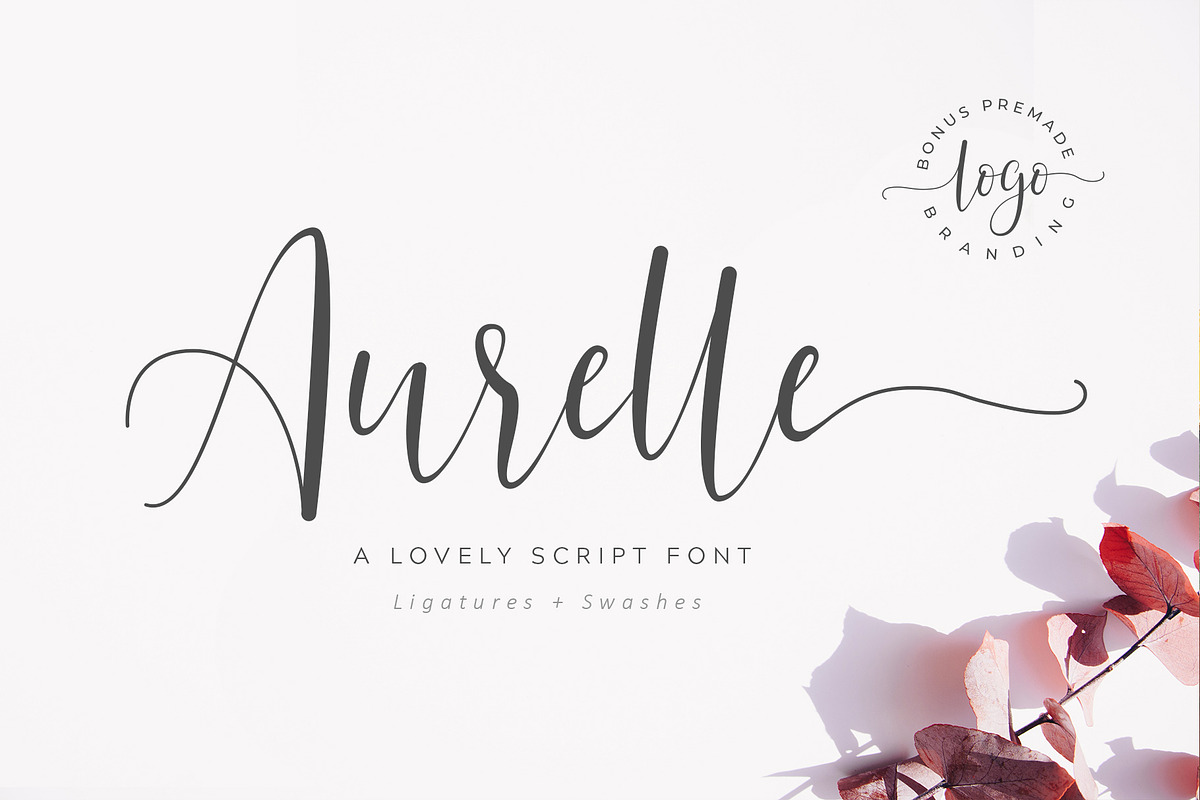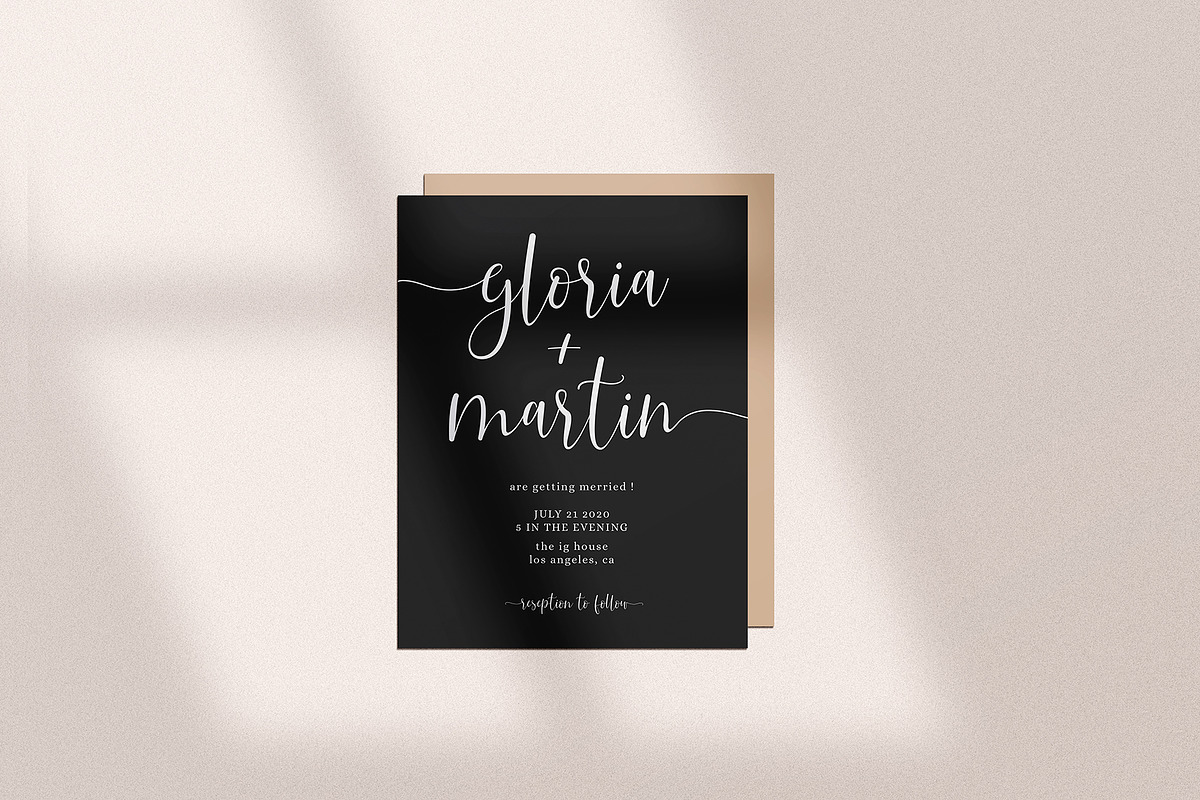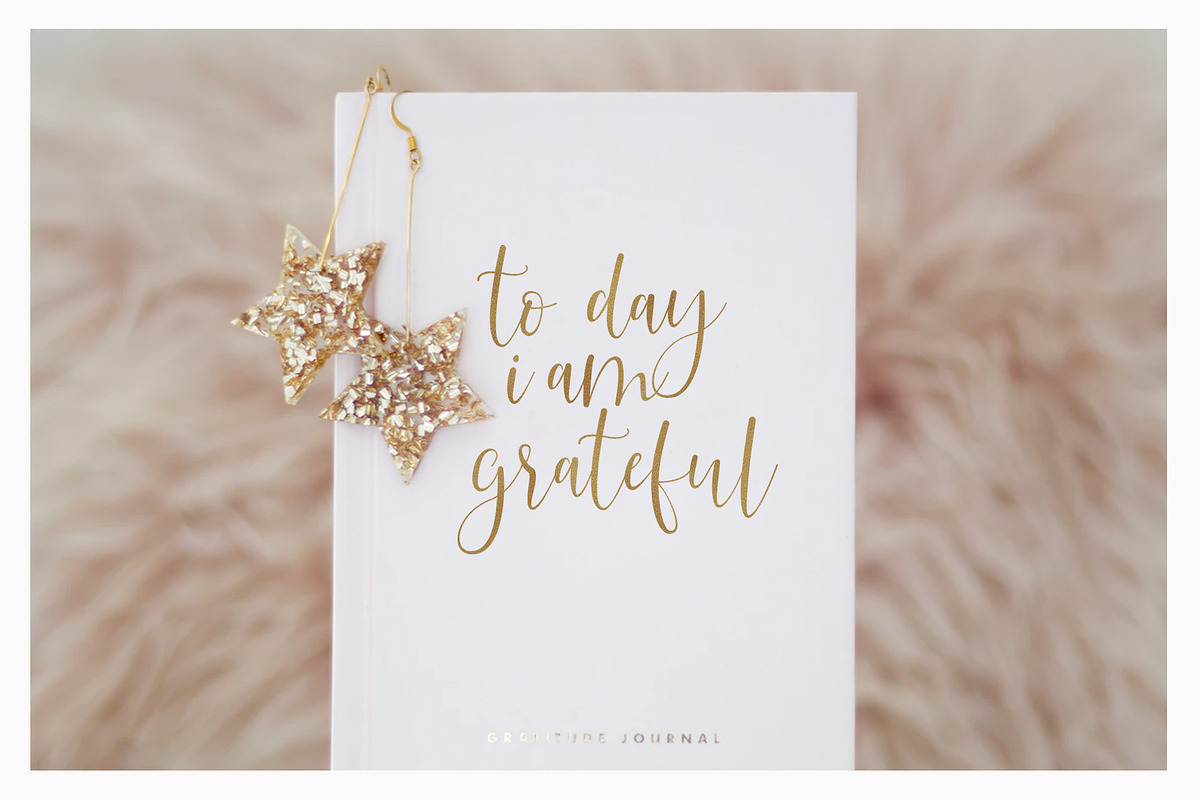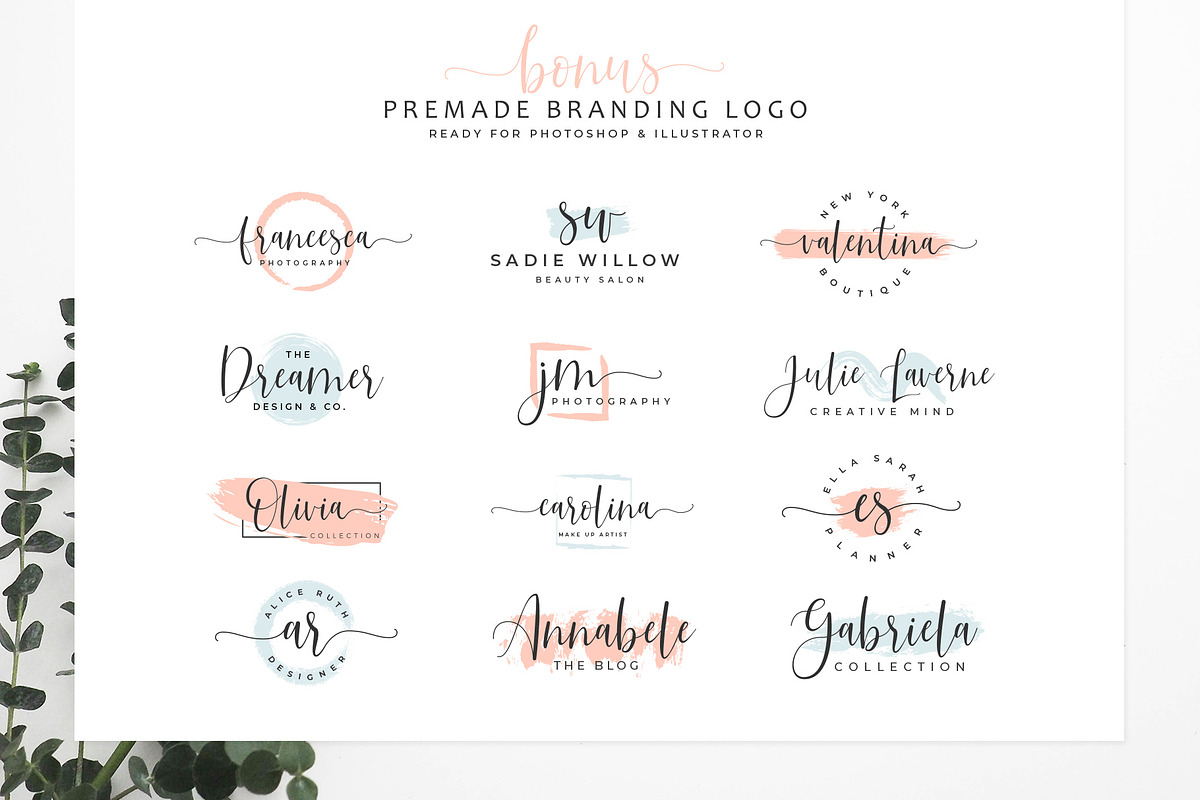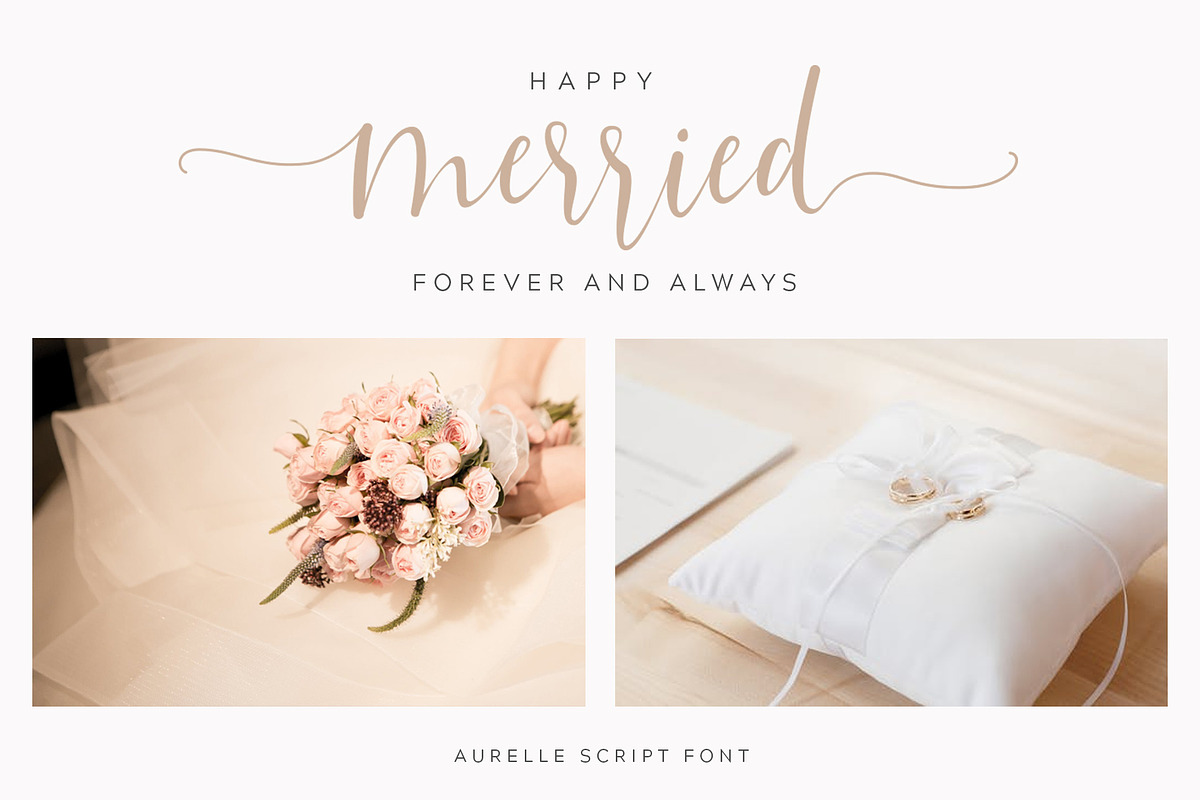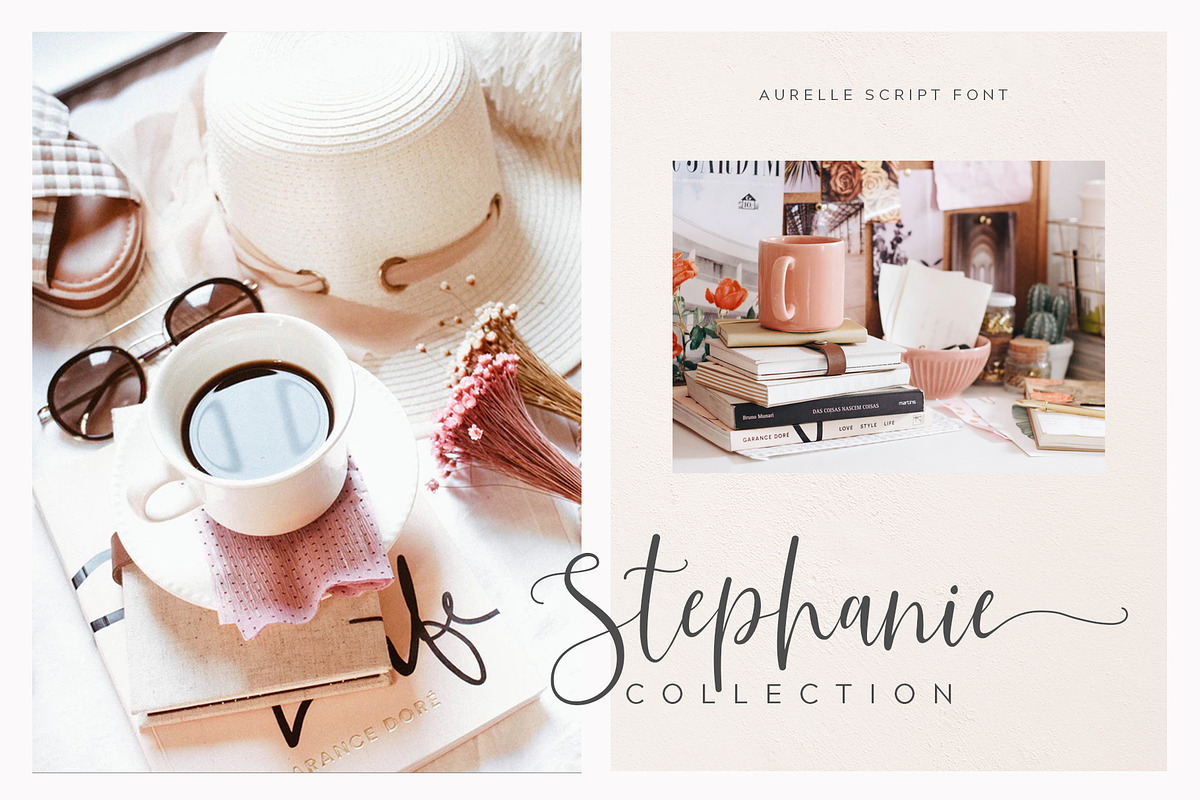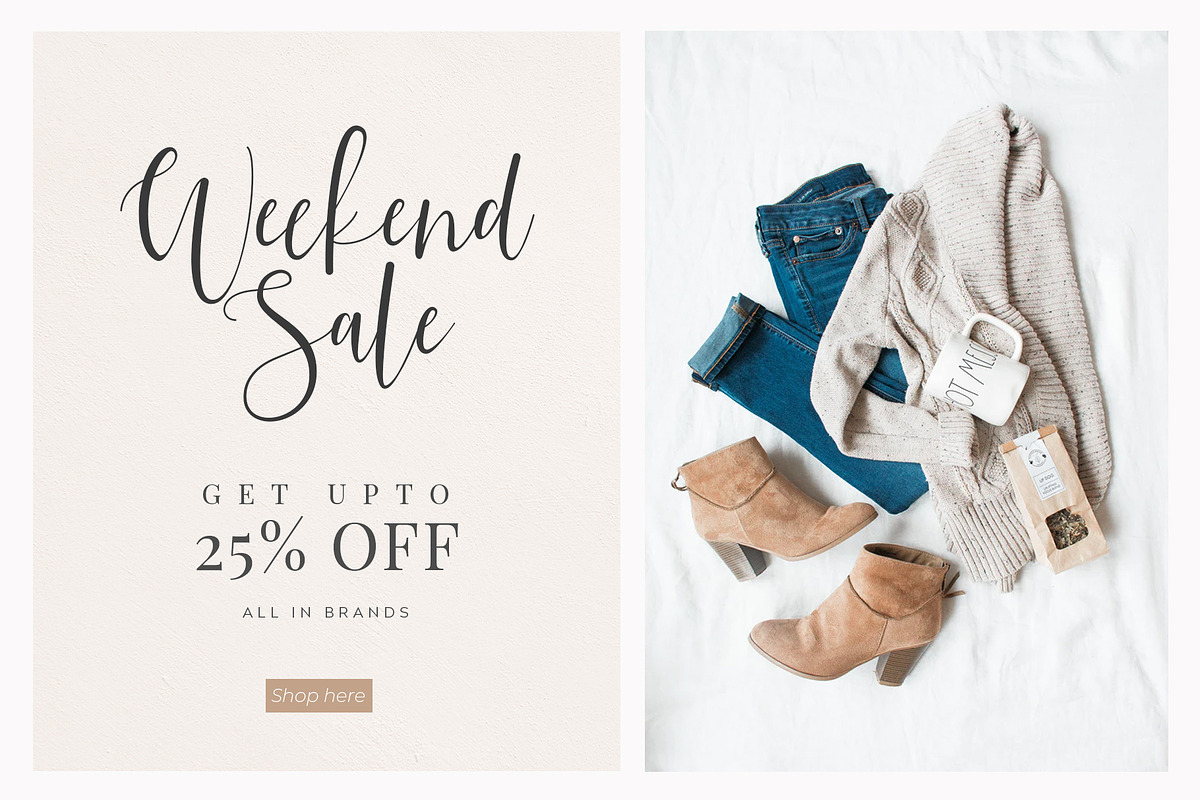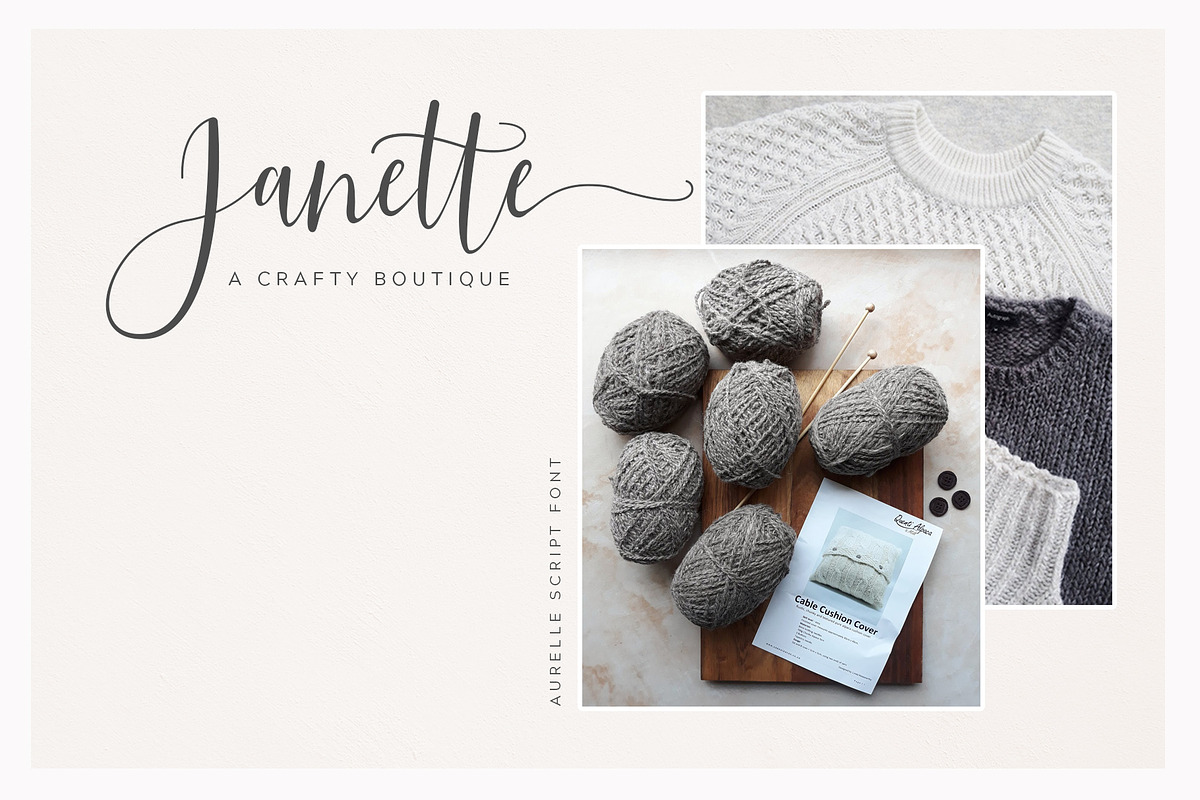
Aurelle Script Font
Aurelle script font that will give instant flair to your designs. font with contemporary, sophisticated accents. It is perfect for branding, wedding invites and cards, and maybe for red wine label.
- font with contemporary, sophisticated accents.